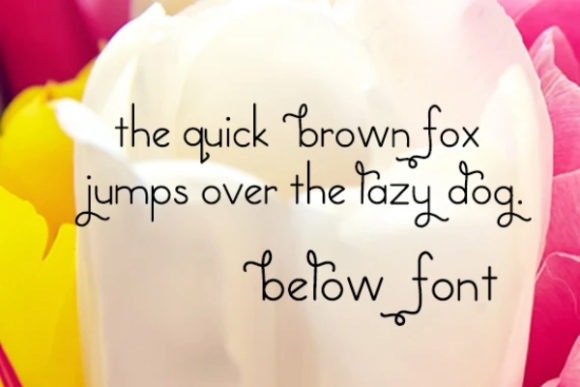
Have you ever stared at a blank canvas, wondering where to start, only to have a spark of inspiration strike and suddenly everything falls into place? That’s exactly what happened to us when we discovered the Below Font. This modern handwritten font is more than just a pretty face – it’s a versatile tool that can elevate any creative project from ordinary to extraordinary.
Below Font is designed to bring a touch of warmth and personality to your designs, making it the perfect choice for social media graphics, DIY projects, and even calligraphy scripts. With its gorgeous swashes and ligatures, this script font is incredibly valuable for designers looking to add a human touch to their work. Whether you’re a seasoned pro or a creative newbie, Below Font is sure to become your new go-to font for all your design needs.
Below Font Key Features
- Unique Characteristics: The font features a unique blend of modern and vintage elements, with a distinctive rounded shape and subtle texture, giving it a distinctive look that sets it apart from other fonts.
- Legibility: Below Font is designed to be highly legible, even at small sizes, making it an excellent choice for body text, titles, and other applications where readability is crucial.
- Style Variations: The font family includes multiple styles, including regular, italic, bold, and bold italic, offering flexibility and versatility for designers and typographers.
Below Font Review
Below Font is an intriguing typeface that has some unique qualities, but it also has some drawbacks. Let’s dive into what makes it tick.
- Uniqueness: Below Font is certainly one-of-a-kind, making it a great choice for designers looking to add some personality to their projects.
- Flexibility: The font is available in a range of weights and styles, allowing for a high degree of customization.
- Legibility: Despite its quirky nature, Below Font is surprisingly easy to read, even at smaller font sizes.
- Context limitations: Below Font is best suited for use in digital projects, where its unique characteristics can shine. In print applications, it may not be as effective.
- Overuse: While the font’s versatility is a strength, it can also be a weakness if overused. Be sure to use it judiciously to avoid visual fatigue.
- Browser compatibility: Unfortunately, Below Font may not display perfectly across all browsers, which can be a concern for designers who need to cater to a wide range of users.
Overall, Below Font is a solid choice for designers who want to add some flair to their projects. While it has its limitations, its unique qualities and flexibility make it a worthwhile consideration. Just be sure to use it thoughtfully and consider your audience’s needs.
Below Font: A Practical Application Guide
Introduction to Below Font
Below Font is a popular font style used to create visually appealing and modern designs. It’s often used to add a touch of sophistication and elegance to text.
Below Font is commonly used in:
* Headings and titles
* Logos and branding
* Quotes and captions
* Social media graphics
* Brochures and flyers